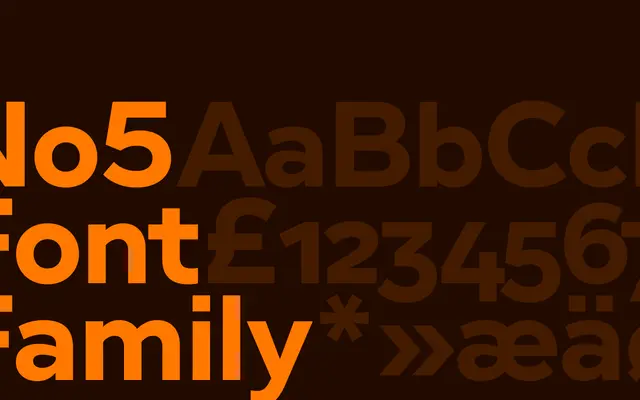
A serif typeface from Playtype with a literary and character-driven personality, suited to editorial and narrative contexts.
Presented with a distinctly literary tone, No5 draws on the idea of a compelling character being drawn back into a story against their better judgement. The page copy is sparse, offering little technical detail, but the mood suggests a text-focused serif intended for editorial use. The family appears to be a single style without expanded weights or widths.
The typeface is presented as a literary, character-driven design, suggesting a traditional serif form suited to editorial and long-form text, consistent with transitional serif conventions.